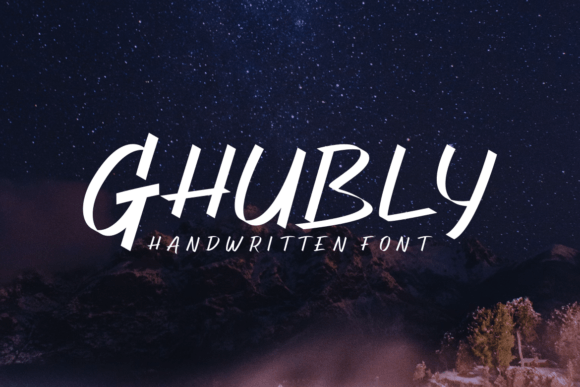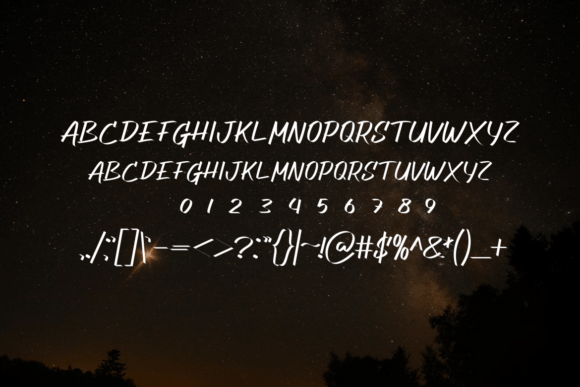
Introduction to Ghubly Font
Ghubly is a modern handwritten font with bold strokes and a striking, angular design that exudes confidence and energy.
Perfect for logos, headlines, posters, and branding projects, its contemporary style makes it stand out in any context Whether you’re designing for fashion, tech, or an adventurous theme, Ghubly delivers a bold statement with its dynamic, handcrafted character.
Key Features of Ghubly Font
Why Choose Ghubly Font?